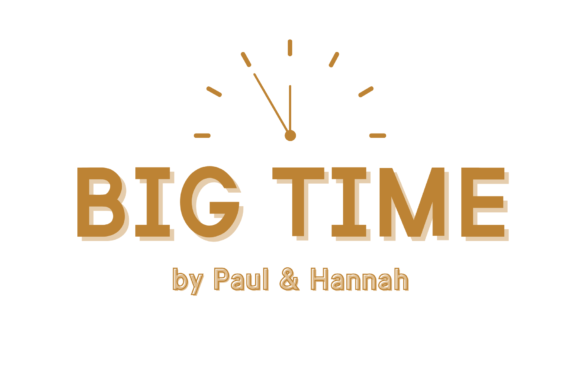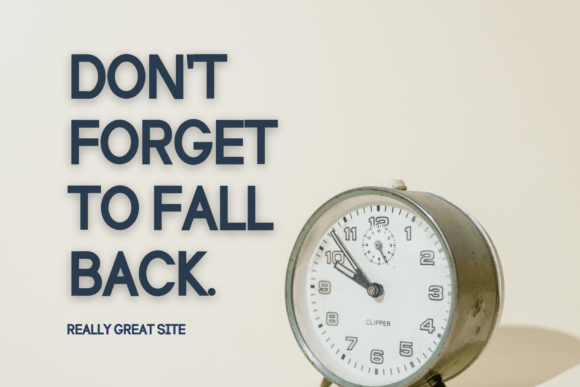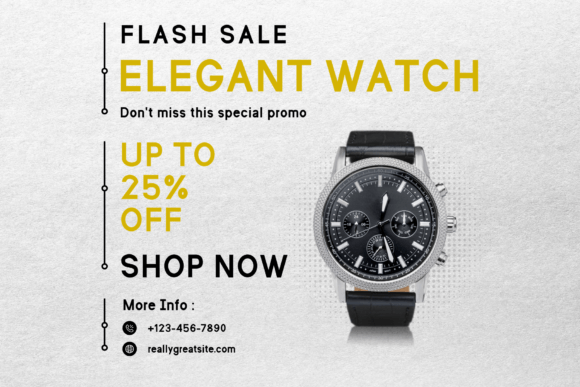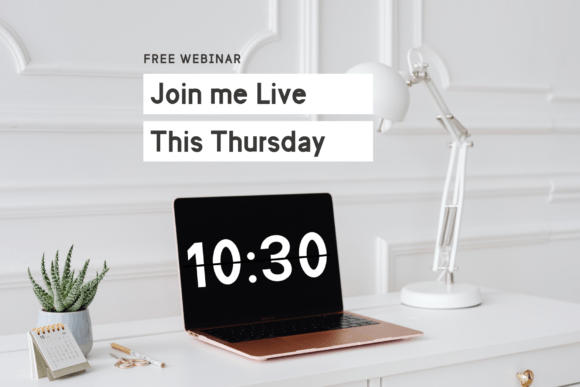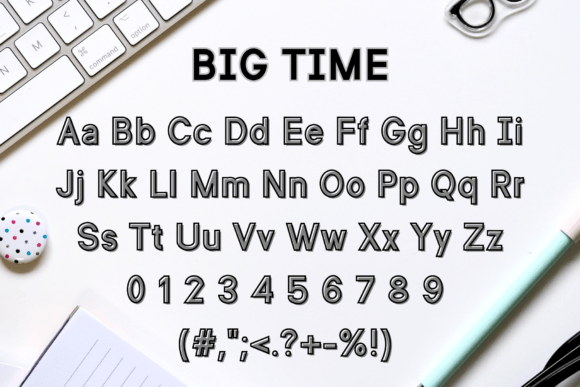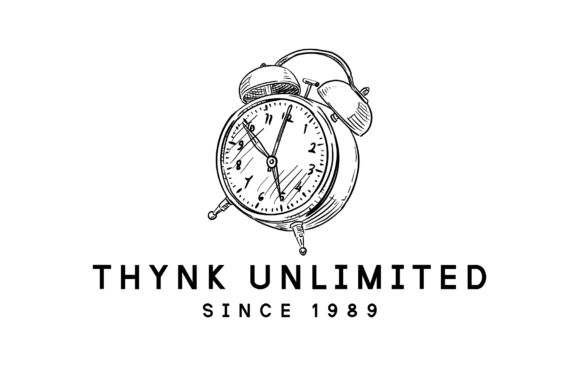
Designing Time Itself
Have you ever found yourself lost in the intricate details of a font, only to realize that simplicity is the key to true expression? I recall a moment when I was brainstorming ideas for a new font with a fellow designer, and we stumbled upon the concept of a clock tower. The idea sparked a creative chain reaction that led us to create Big Time Font – a font that embodies the essence of time itself.
Big Time Font is more than just a font; it’s a reflection of our desire for clarity and precision. By making the lines inside the font larger, we aimed to create a design that is both simple and effective. This font is valuable for designers looking to add a touch of sophistication to their projects, and its clean lines make it a great choice for anyone seeking a professional look.
Big Time Font Key Features
- Font Family: Big Time is a sans-serif font family designed for use in digital media, including screen displays, web pages, and mobile devices.
- Unique Characteristics: Big Time features a clean and modern design, with a focus on readability and legibility in digital environments. Its x-height and stroke width are optimized for clear display on screens.
- Language Support: Big Time supports a wide range of languages, including Latin, Cyrillic, and Greek scripts, making it a versatile font suitable for global applications.
- Style Variations: Big Time includes 6 different font styles, including Regular, Bold, Italic, Bold Italic, Condensed, and Extended, offering users a range of design options to suit their needs.
Big Time Font Review
Overall, I think Big Time Font is a great addition to any designer’s toolkit. ✨ Here are some things that really stand out:
- Unique Character: Big Time Font has a distinct, modern feel that sets it apart from more traditional fonts.
- High Legibility: The font is highly legible, even at smaller sizes, making it perfect for body text or display headings.
- Great for Headings: Big Time Font is fantastic for creating attention-grabbing headings and titles.
- Limited Font Families: Big Time Font only comes in a single weight, which may limit its use in certain contexts.
- Not Ideal for Small Text: While Big Time Font is highly legible, it may not be the best choice for extremely small text sizes.
Overall, I’d give Big Time Font 4 out of 5 stars. It’s a solid choice for designers looking for a modern, high-legibility font, but it may not be the best fit for every project.
Big Time Font is a versatile font that can be used in a variety of design contexts.
To get the most out of it, use it in bold or italic styles to add emphasis to your text.
Big Time Font is commonly used in:
1. Graphic design projects.
2. Branding and marketing materials.
3. Social media graphics.
4. Print materials (e.g. business cards, brochures, etc.).